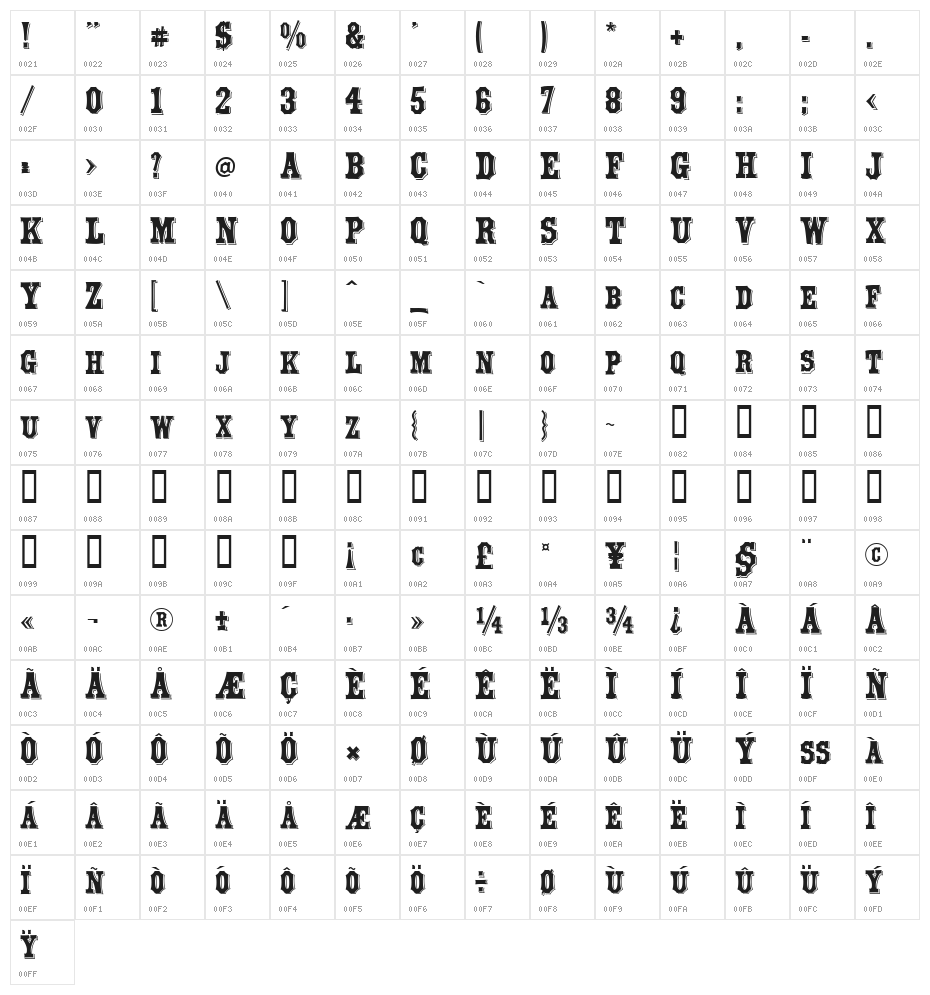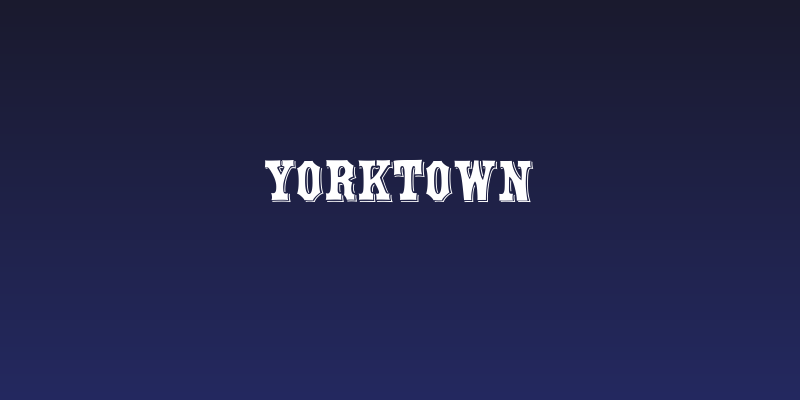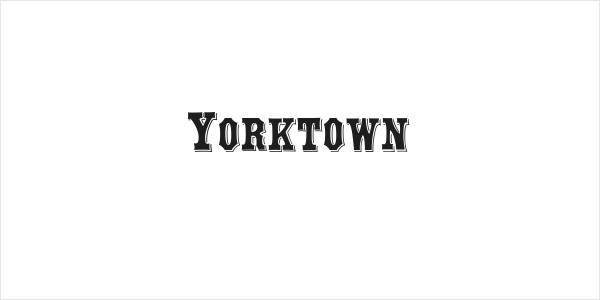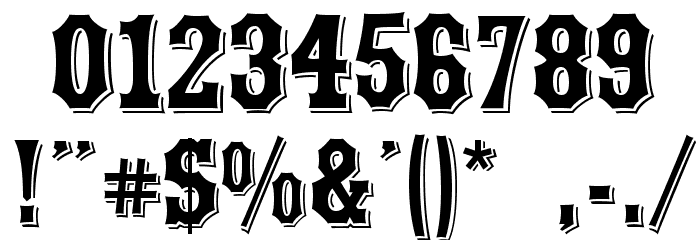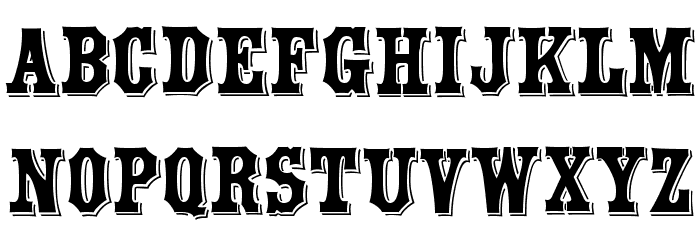
Yorktown Font
Yorktown Description
This font features a bold, decorative style with a strong presence, characterized by thick, block-like serifs and a shadow effect that gives it a three-dimensional appearance. The uppercase letters are particularly striking, with sharp angles and a robust structure that commands attention. The numerals and special characters maintain this bold aesthetic, ensuring consistency across all glyphs. The font's design is reminiscent of vintage Western typography, often seen in old posters and signage, making it ideal for projects that require a touch of nostalgia or a bold statement.
| Overall Style | Vintage |
| Proposed Projects | Ideal for vintage-themed posters, signage, branding projects, and any design requiring a bold, eye-catching typeface. |